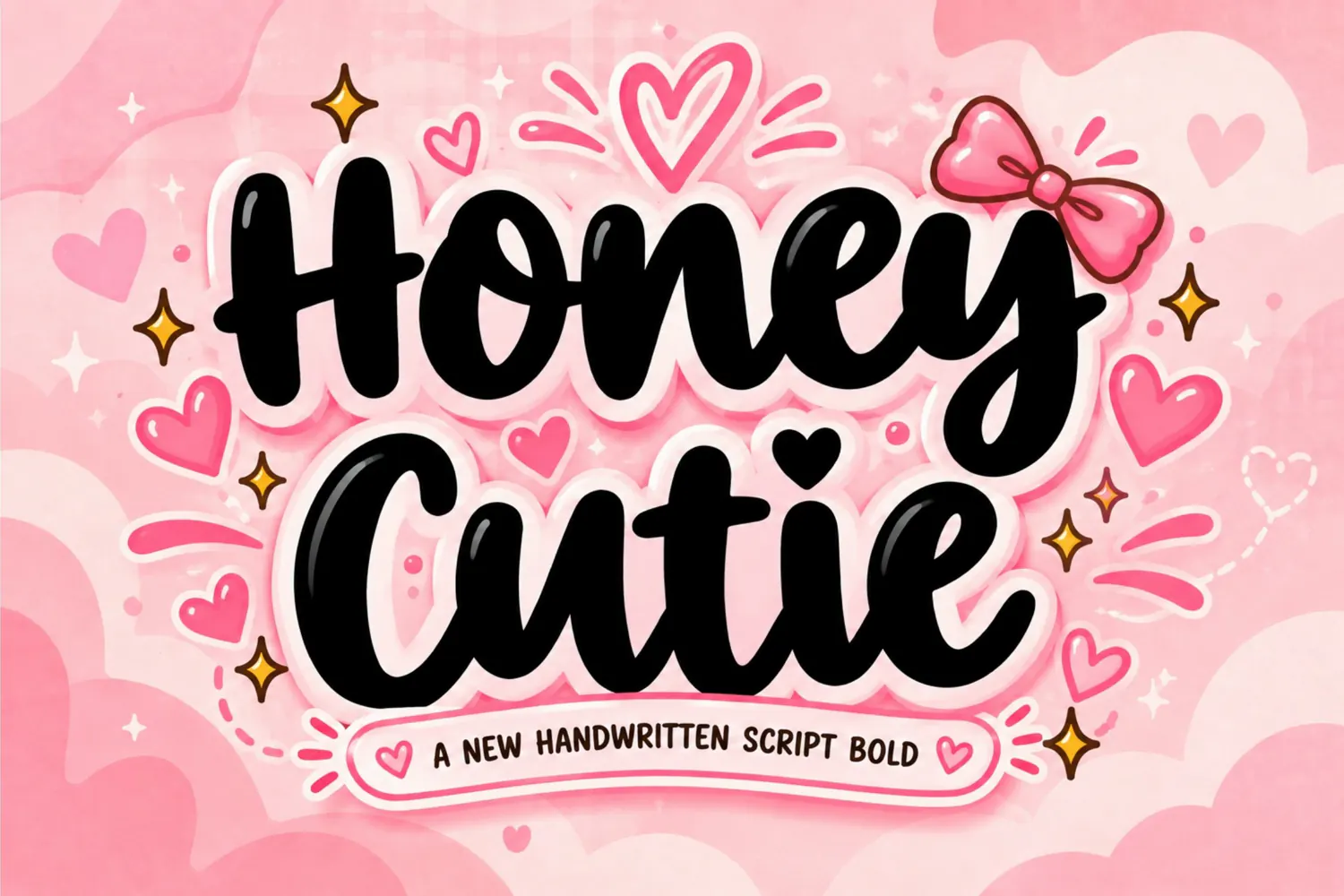
Honey Cutie with Extras
Honey Cutie – Bold Modern Script Font with Extras
Meet Honey Cutie with Extras, a charming and expressive bold modern script font created to bring sweetness, confidence, and personality to your creative projects.
With its bold strokes, smooth curves, flowing connections, and playful handwritten character, Honey Cutie combines a modern aesthetic with a cute and feminine touch. Its confident appearance makes it stand out beautifully in both large display designs and stylish branding applications.
Whether you're creating a trendy logo, beautiful packaging, social media content, apparel, invitations, or eye-catching promotional artwork, Honey Cutie adds an effortlessly sweet and memorable to your typography.
Logo & Branding
Fashion & Beauty
Packaging Design
Product Labels
Social Media Graphics
Invitations & Wedding Designs
Apparel & Merchandise
Posters & Headlines
Stickers & Stationery
Quotes & Greeting Cards
Lifestyle & Boutique Projects
Honey Cutie is designed for creatives who love typography that feels bold, playful, modern, sweet, and full of character.
Let your words become sweeter, bolder, and more memorable with Honey Cutie with Extras.